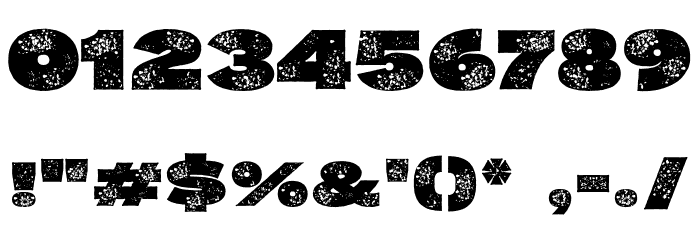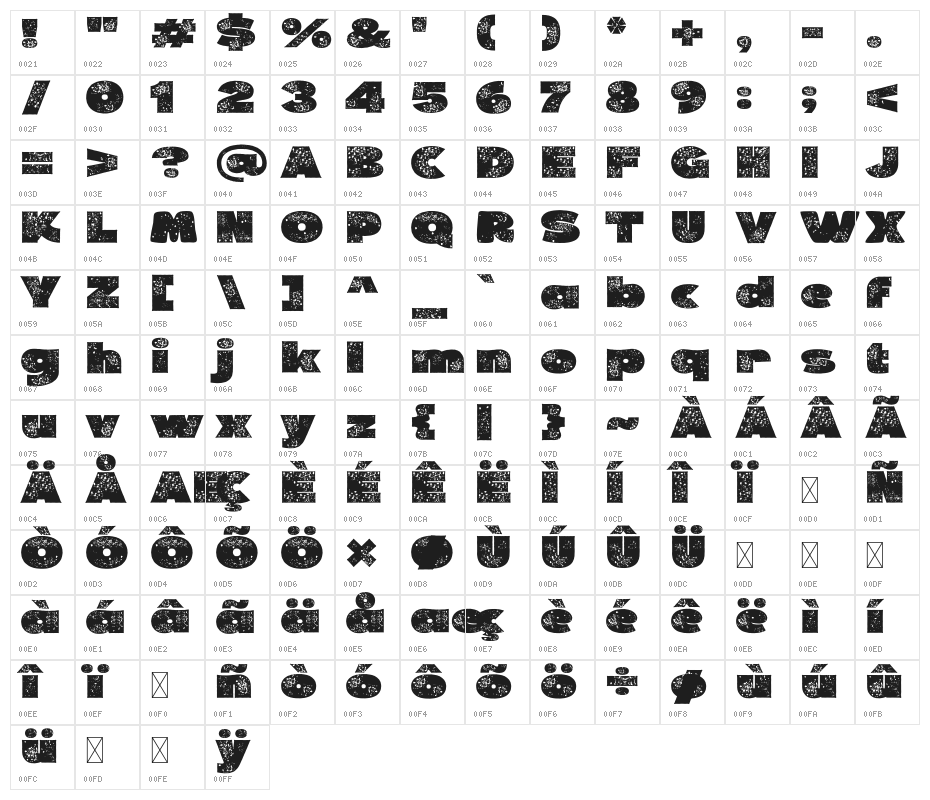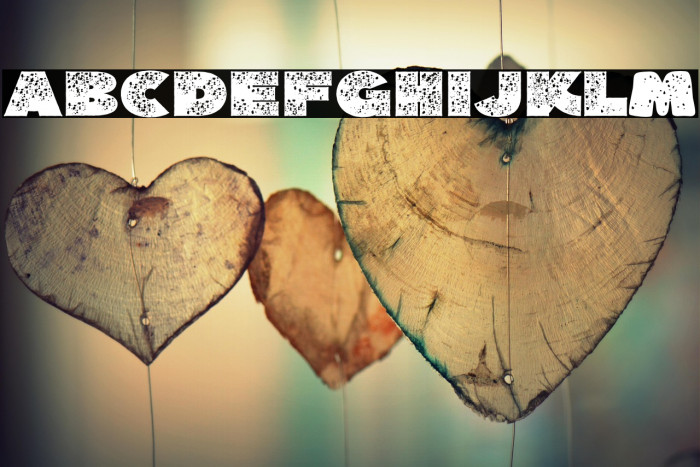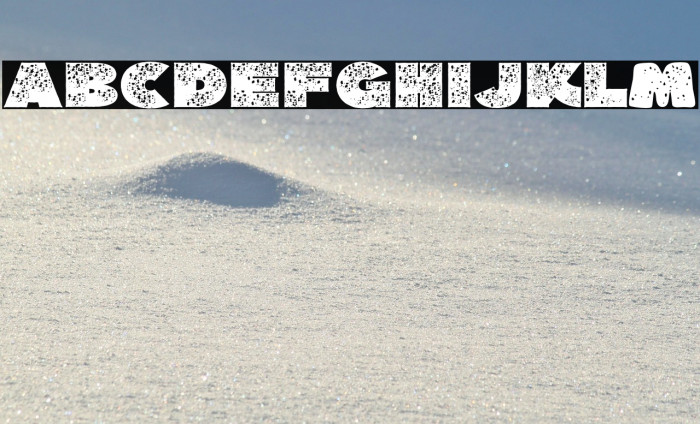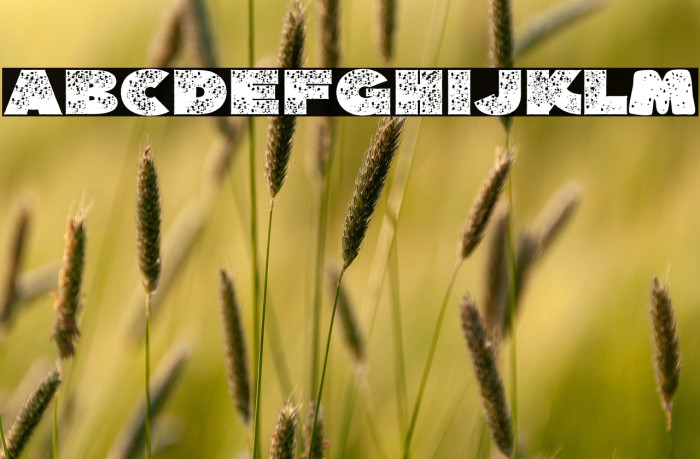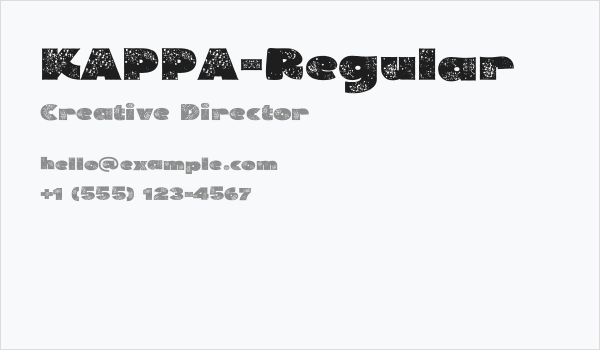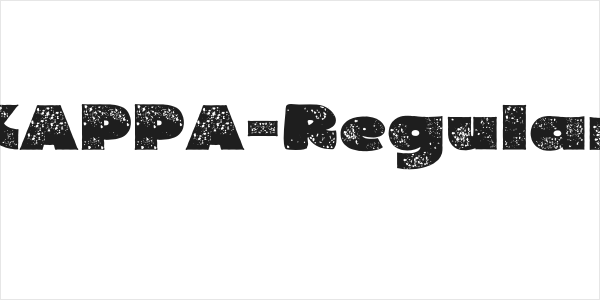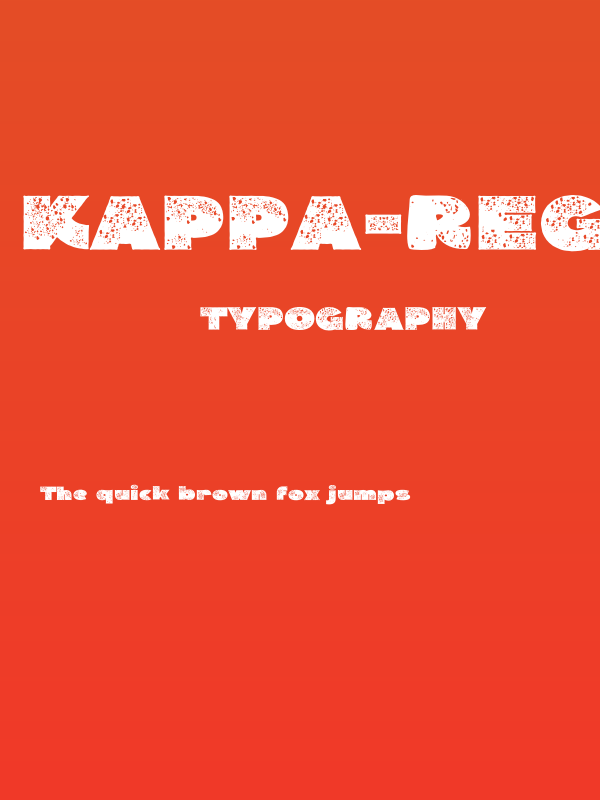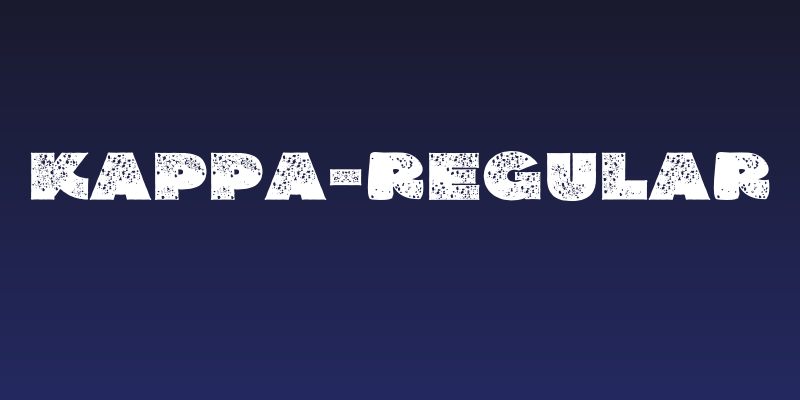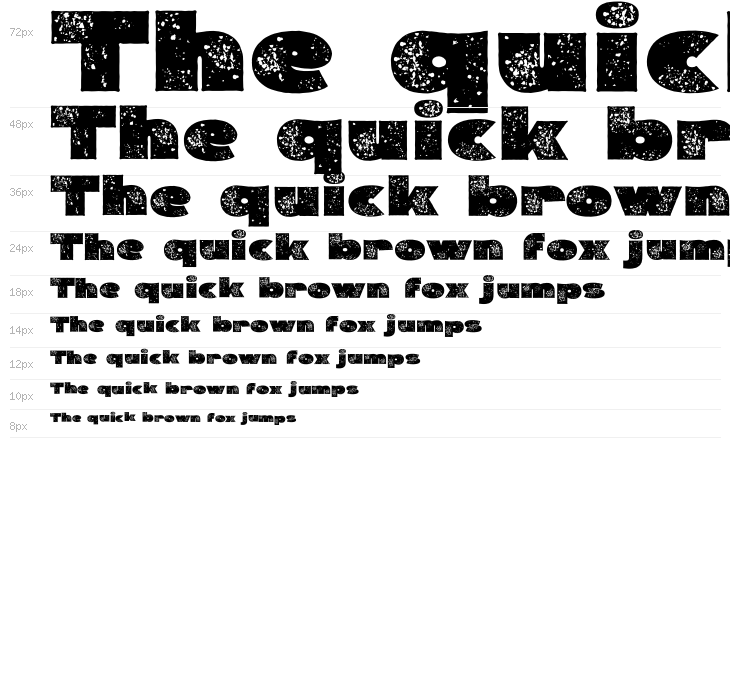
KAPPA-Regular Font
KAPPA-Regular Description
This font features a bold and impactful design with a distressed texture that gives it a rugged, vintage appearance. The characters are thick and substantial, making them stand out prominently. The texture within each letter adds a unique, weathered look, reminiscent of worn-out surfaces or aged materials. This style is perfect for creating a strong visual impact while maintaining a sense of nostalgia and character. The uppercase and lowercase letters are consistent in style, and the numbers and special characters follow the same textured pattern, ensuring a cohesive look across all text elements.
| Proposed Projects | Ideal for poster designs, branding projects, album covers, and any creative work that requires a strong, vintage aesthetic. |